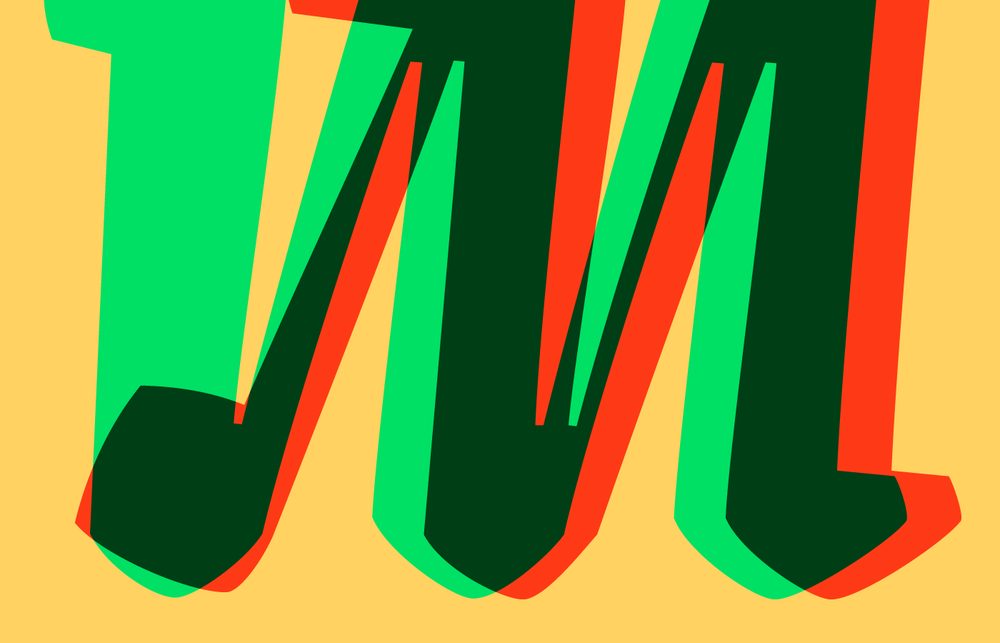
After Effects: Animate variable fonts
Update: as of After Effects v26 this functionality is now out of beta!
I’m so excited that we can finally(!) access a huge part of the potential of variable fonts in creative animation workflows in the After Effects Beta. I’m no pro when it comes to motion design but I wanted to try out some of the variable fonts available on Adobe Fonts. After watching a couple of tutorials on ‘Text Animators’ and how powerful they can be, I got stuck in.
The key benefit to variable fonts when it comes to animations is you have access to the whole design space for a font family through different axes. Typically this is things like weight and width, beyond just the preset styles 'light, regular, bold' etc. This means you can transform the letters without having to skew them and losing the integrity of the designs (think verticals becoming too squished etc). There also are a lot of very creative variable fonts which basically have effects built-in.
I’ll run through the fonts I tried out and how I created each example. Let’s dig in!
Adapt Variable
Monday
Adapt from Supertype is an extensive and versatile sans-serif family and the Variable font gives you access to all of that in one. The animation uses scale, tracking, the variable font width axis, and weight axis. I used keyframes on the offset of the range selector with a loopOut("pingpong") expression to make it loop back. Effectively this applies the animation from left to right, letter by letter, then return again.
Lunatique Variable
Tuesday
For this example I was inspired by the sample image for Lunatique Variable from PintassilgoPrints. I used the built-in Blur Glitch preset to recreate some of the styling, while animating the variable width axis with keyframes on the range offset again.
NCND Variable
Wednesday
I was inspired by NCND Variable from LettError to create a bleeding effect as if the text had just been typed by a typewriter and was solidifying on the paper. This is all handled with the variable width axis built into the font + the ‘Blinking Cursor Typewriter Console’ preset.
Scatterplot Variable
Thursday
Scatterplot Variable from CAST has such a cool effect built in with its ‘random’ variable axis. Effectively the letters are all made up of dots and you can control how spread out they are, as well as the weight axis controlling their size. Animating them both at the same time, along with the color change, gives the effects of the letters appearing out of the chaos.
Superscore Variable
Friday
Friday night lights with Superscore Variable from Swell Type was created using the two built in variable axes — weight and flux. Weight changes how big the dots are, and Flux changes the variance between the dots in each letter. Here I also applied a ‘Wiggly selector’ to the text animator which effectively gives you a random effect like some old school flickering lights.
Graveur Variable
Saturday
I had a lot of fun playing with Graveur Variable from MTM for this example seeing just how many things I could do at once. The variable weight axis, blur, scale, position, opacity, and rotation are all controlled by this text animator with an easing applied to the animation to give it that snap back into place at the end.
Obviously Variable
Sunday
Obviously Variable from OH no Type Co is such a powerhouse of a variable font. I really tried to push my understanding of how to play with variable font animation here, and pretty much got it to do what I wanted. If you animate the scale larger while making the letters more condensed with the variable width axis, you can in theory make it look like the characters grow up or down. There was a bit of trial an error here about how you apply that from the right anchor point and at what rate so they stay lined up. Ideally I’ll try to do a little more tweaking so the letters don’t grow wider faster than they are getting bigger and have a more smooth vertical motion.
Hopefully these examples spark some ideas of what is possible with variable fonts, and for those of you who are more experienced with After Effects I’m excited to see how you can bring them to life even more!